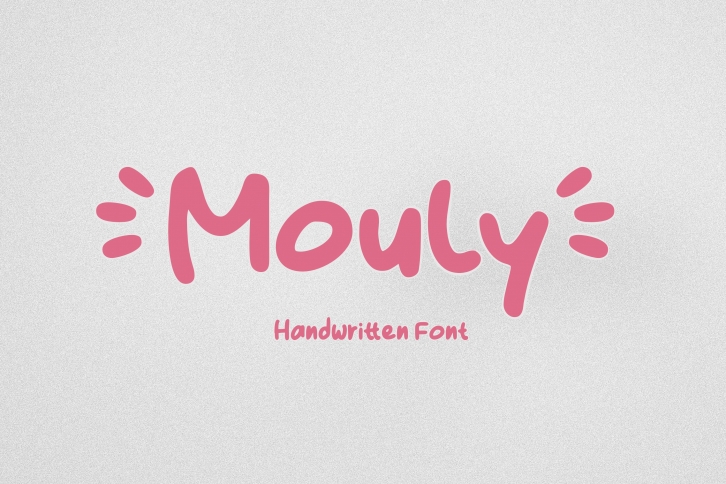
Mouly is a sweet and cute handwritten font. This font is perfect for a wide pool of designs such as eye-catching social media posts, t-shirts, sportswear, logos, advertisements, clothing, beautiful stationery art, and much more!